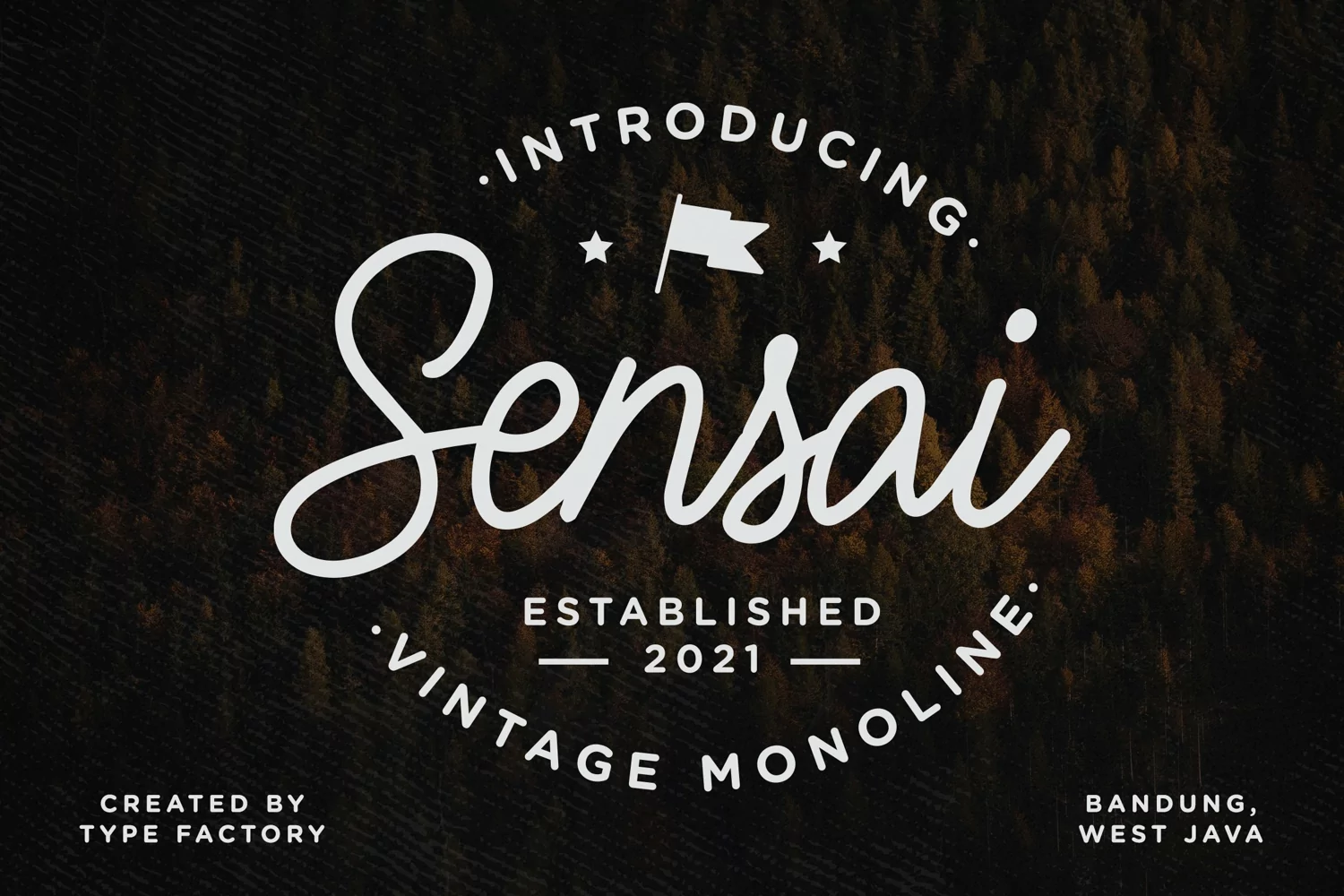
Sensai Vintage Monoline Script
Sensai is a monoline script typeface with smooth characters and an vintage look.
Sensai is suitable for logos, signatures, taglines, handwritten quotes, product packaging, posters, and much more!